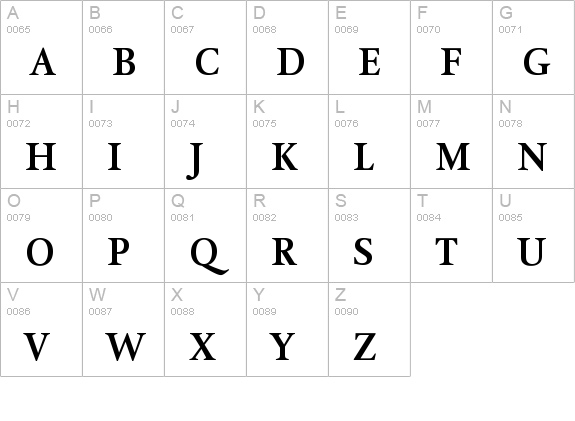
HollanderEF-Bold Font Details
HollanderEF-Bold is a strong, high-contrast variant in the HollanderEF typeface family \xE2\x80\x94 well suited to headlines, attention-grabbing titles, and strong calls-to-action.
HollanderEF-Bold is a striking and versatile font that exudes confidence and modernity. With its bold and dynamic design, this font is perfect for making a statement in any project. Whether you are creating a bold headline or a sleek logo, HollanderEF-Bold is sure to catch the eye and leave a lasting impression. Best of all, HollanderEF-Bold is available for free download at FontsMarket.com. This means you can easily access this premium font and use it in your designs without any cost. Don't miss out on the opportunity to enhance your projects with the bold and impactful HollanderEF-Bold font - download it today for free and take your designs to the next level!